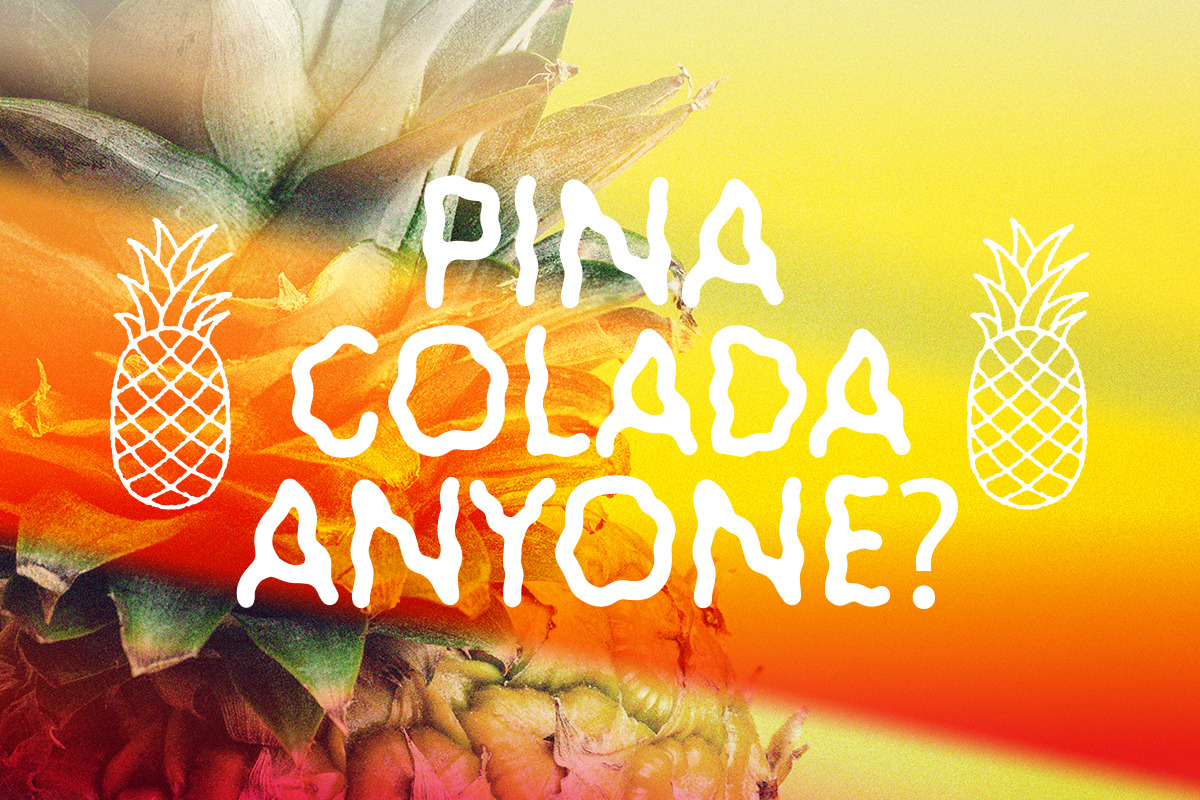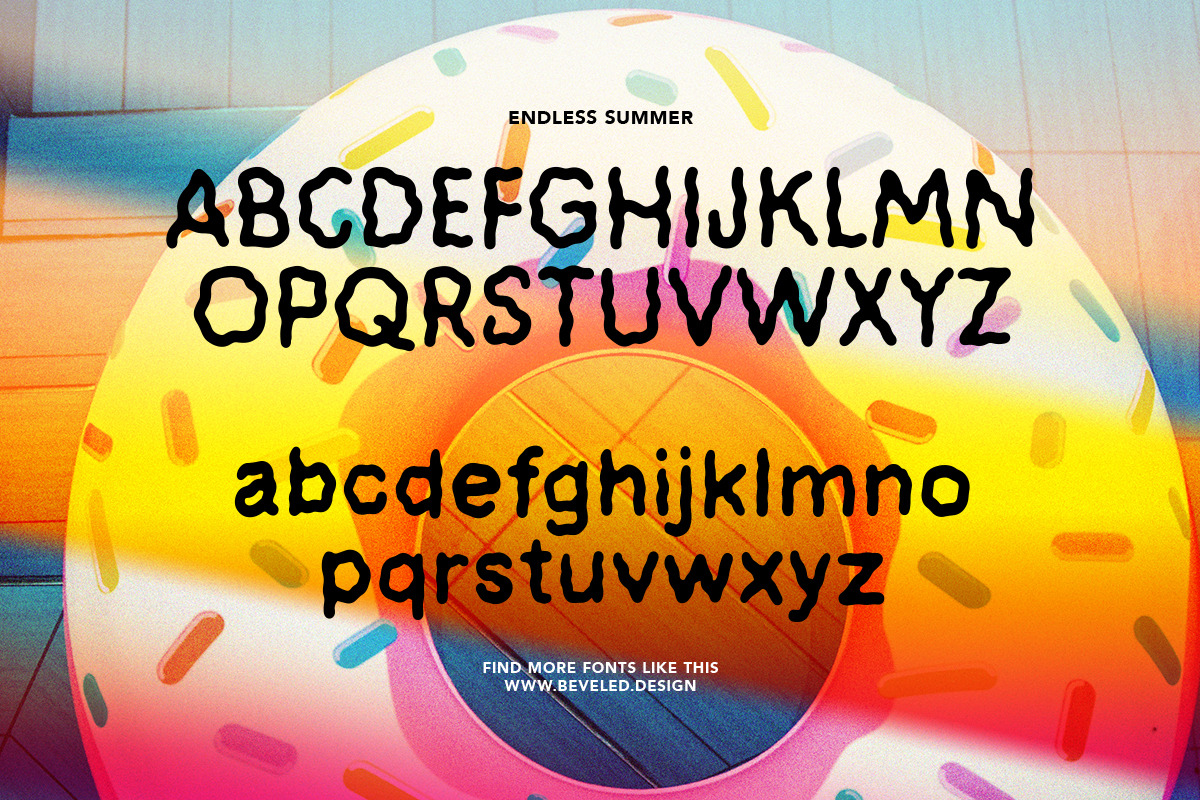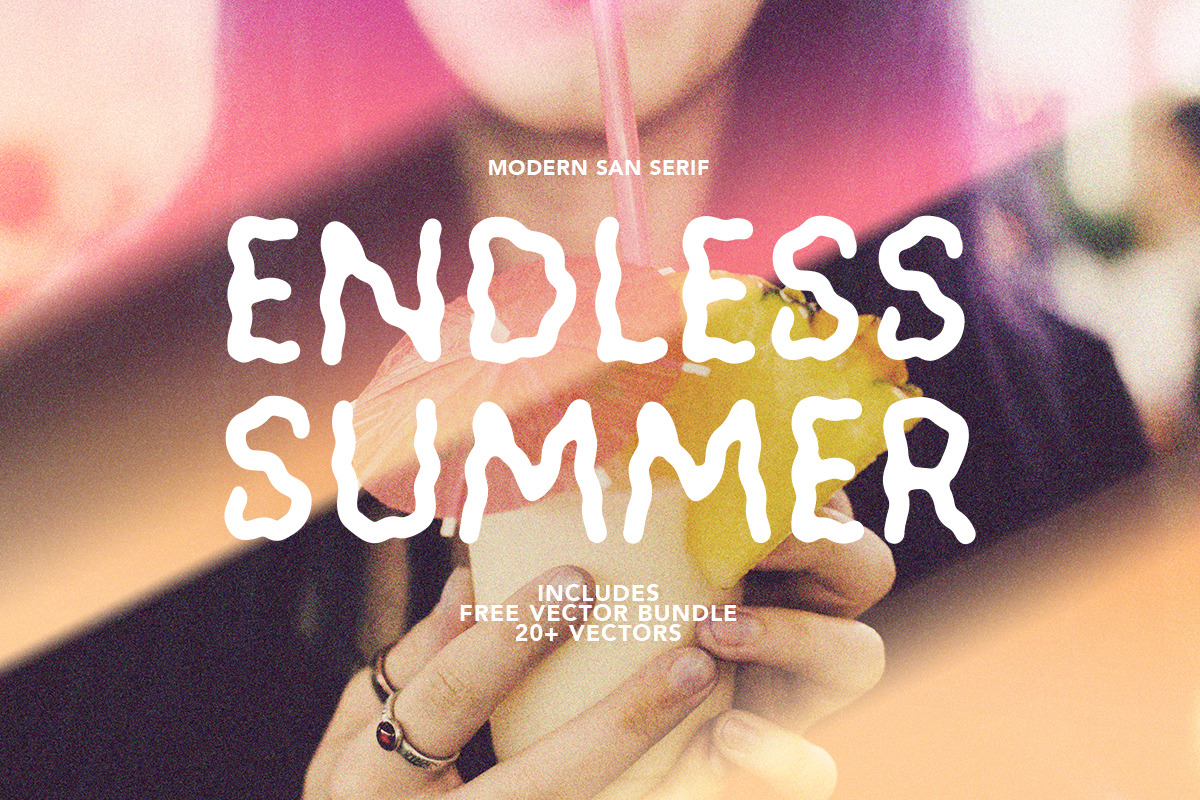
Endless Summer Modern/Wave Font
Introducing “Waves” - A brand new san serif with modern curves.
Endless Summer : Wavy and Refracted
This modern san serif typeface includes both uppercase and lowercase alternates. The modernistic and wavy aesthetic makes this font a perfect duo in your next bright and vibrant project. It is a great typeface to play around with graphic styles making it a very versatile font.
This typeface works well for identity and apparel design. It is also a great on-press font because of the line thickness.